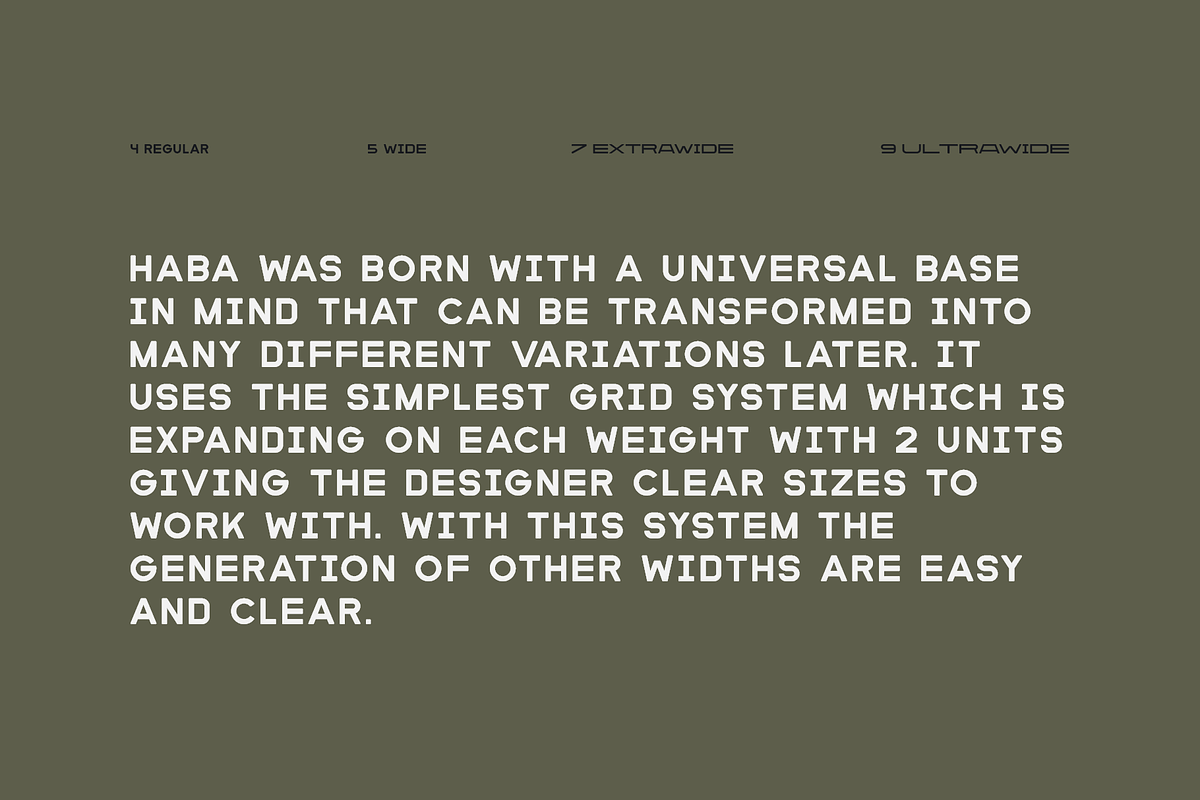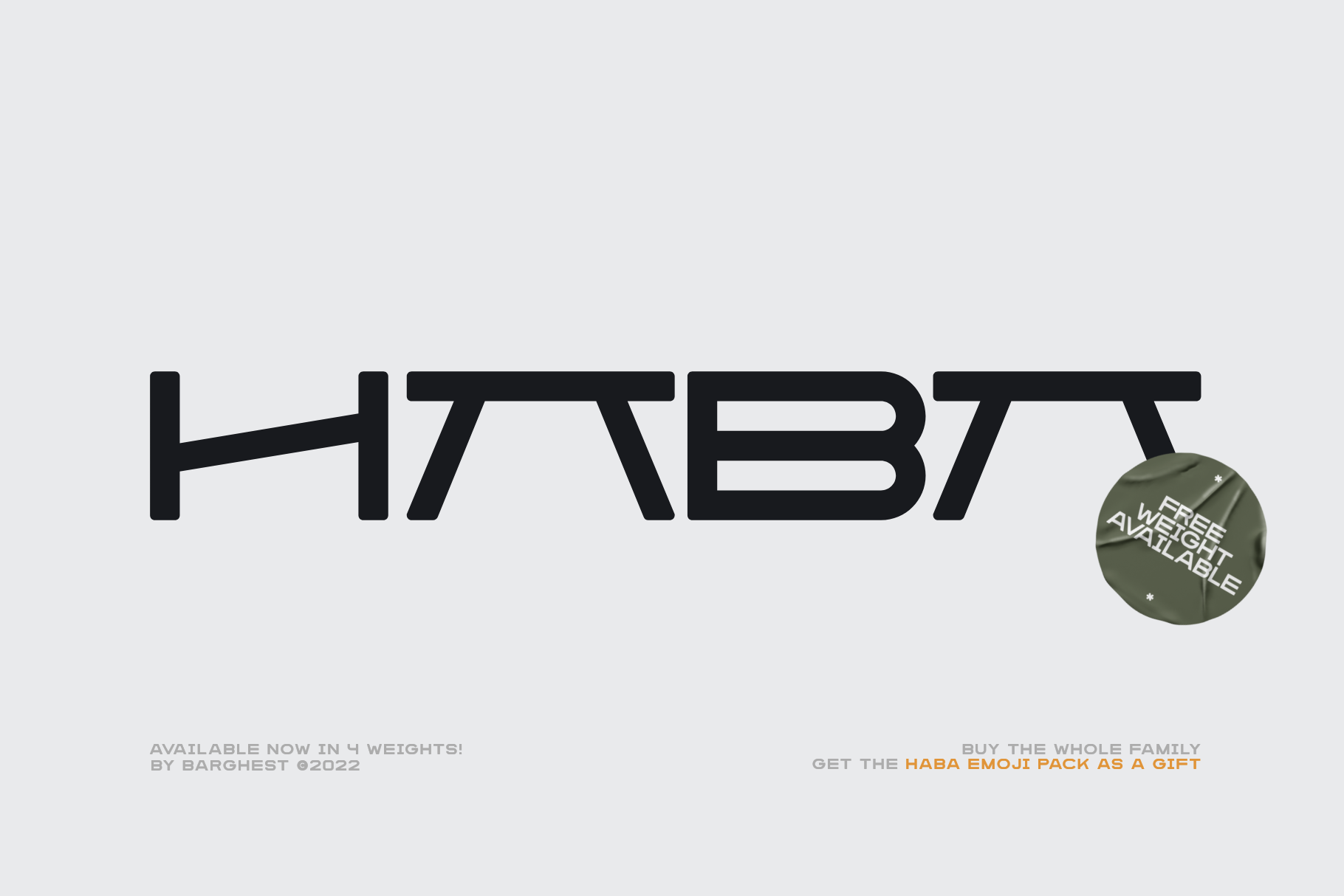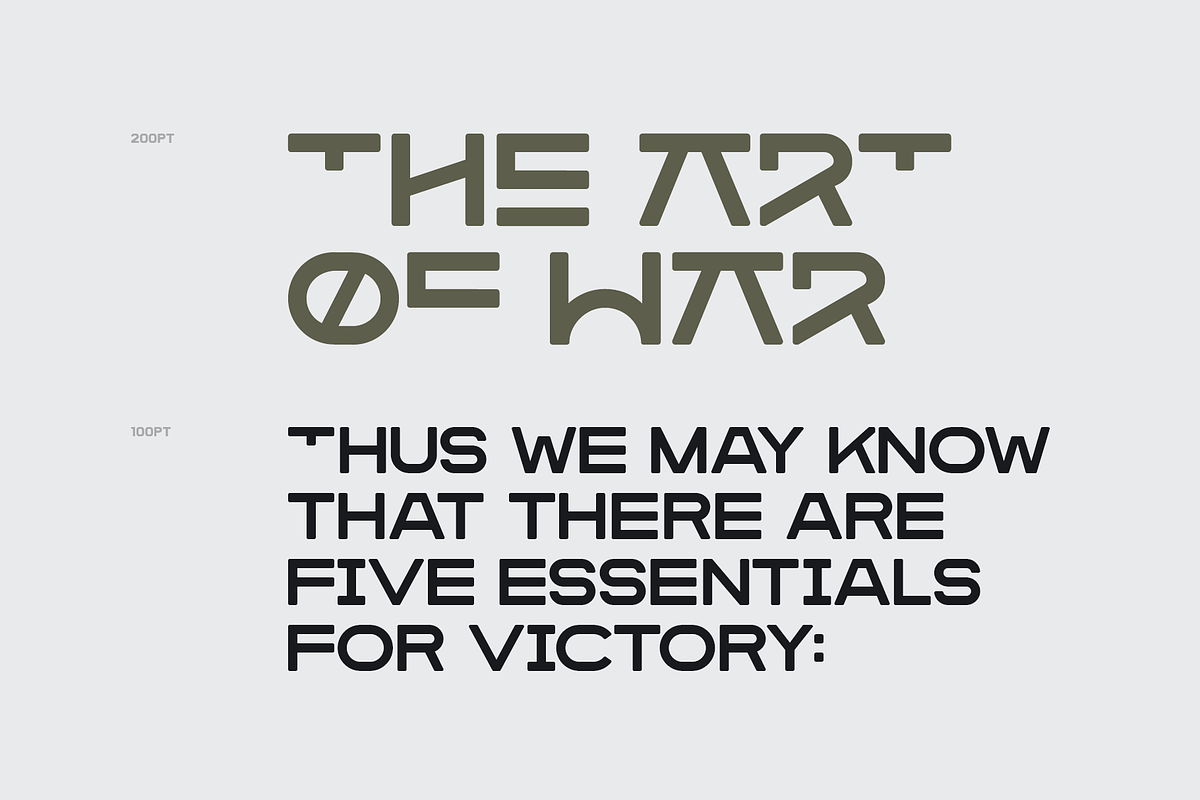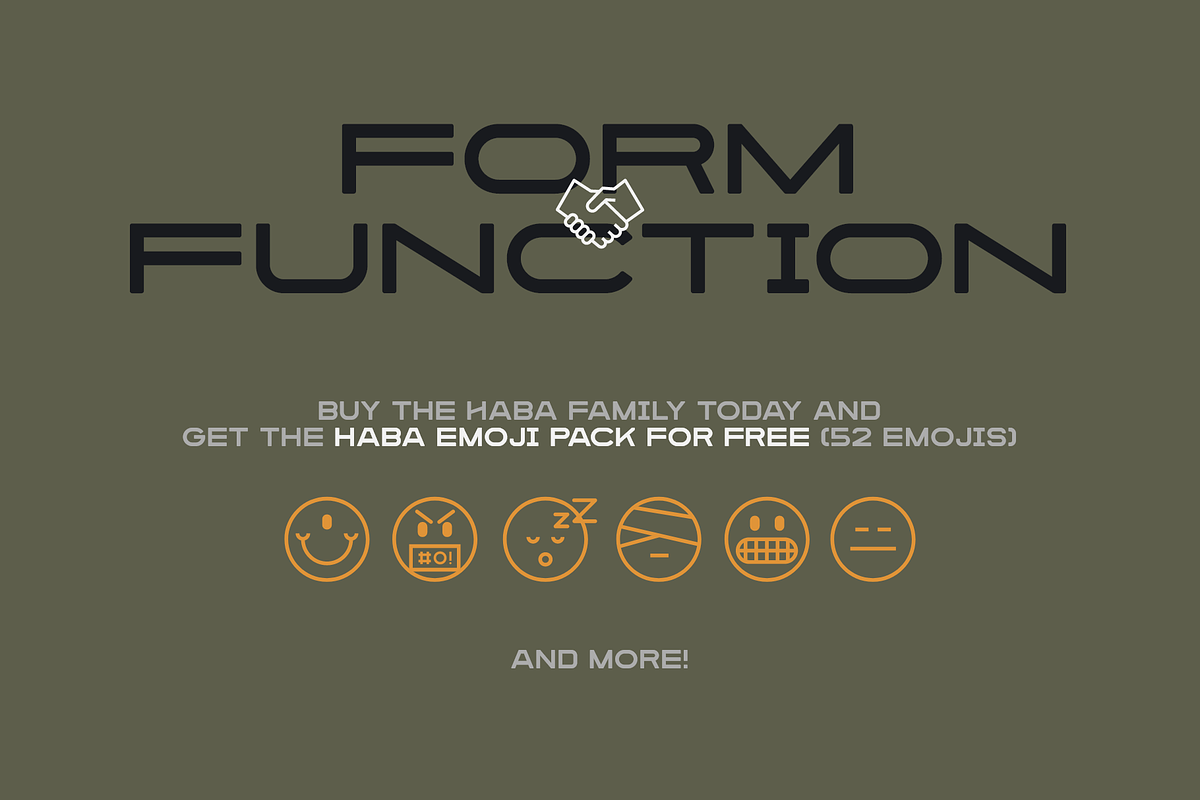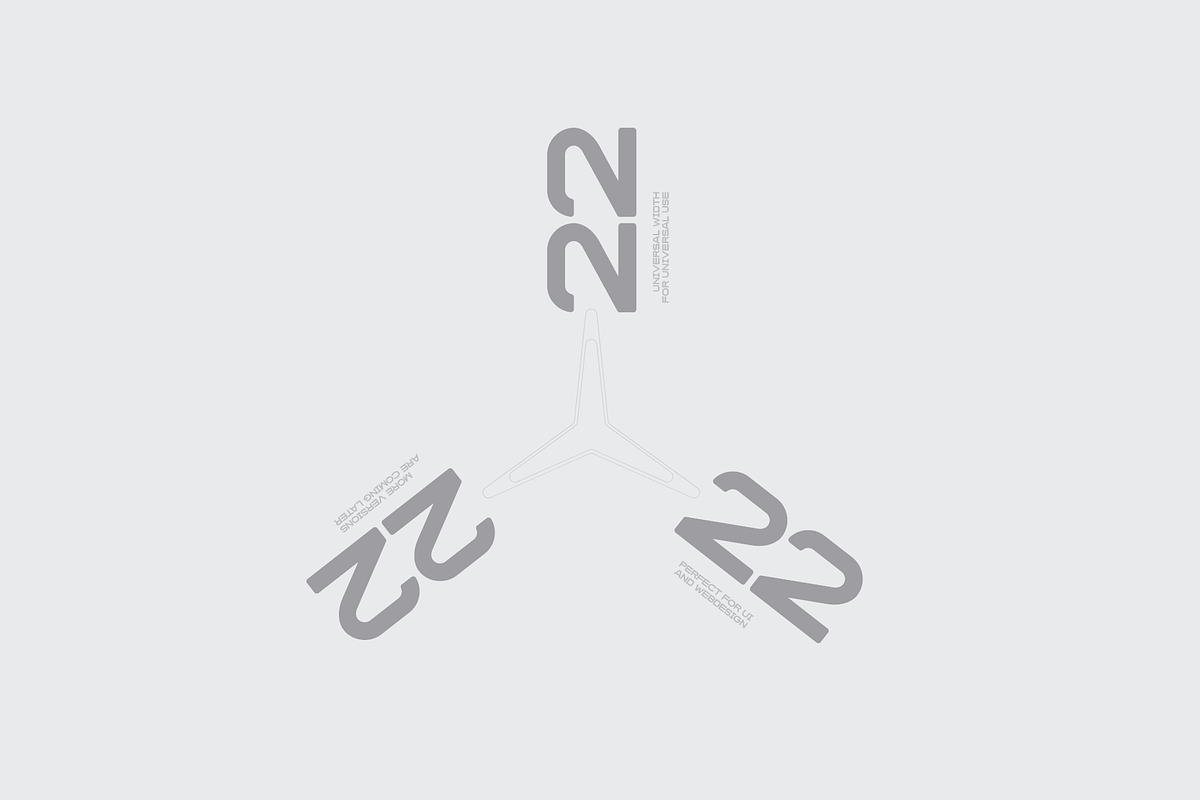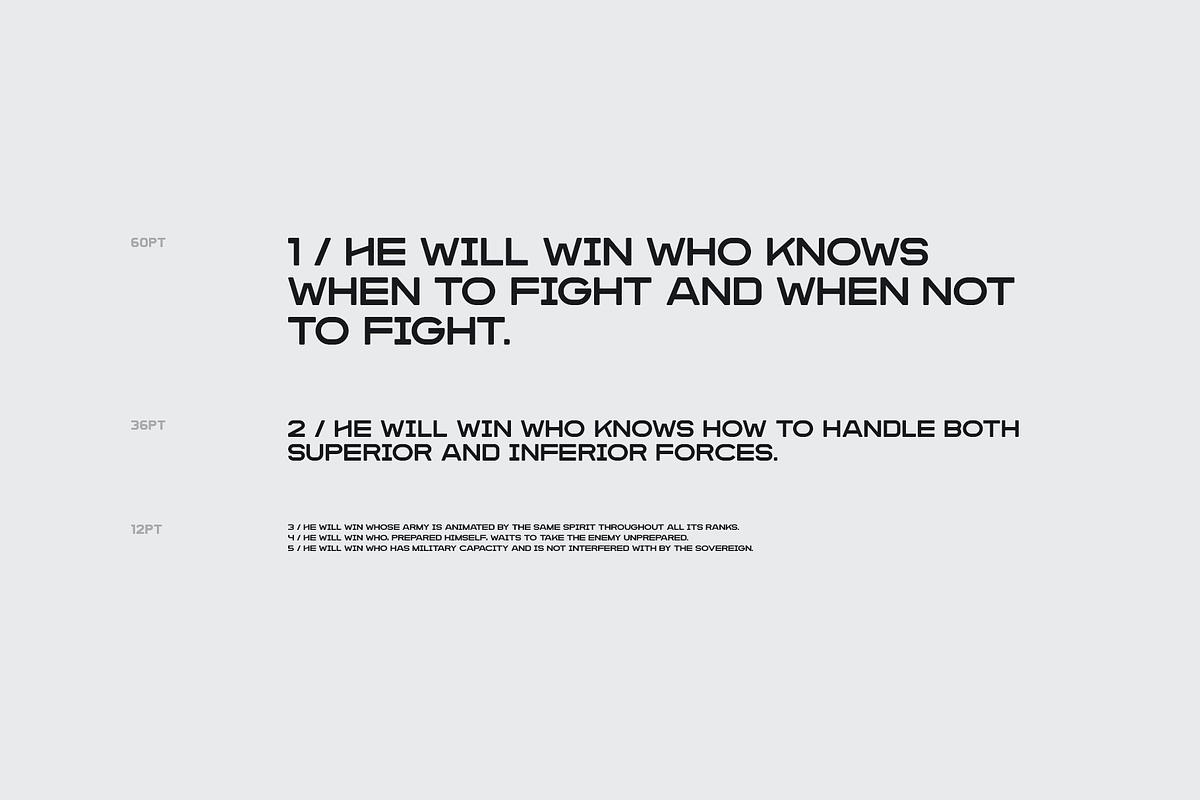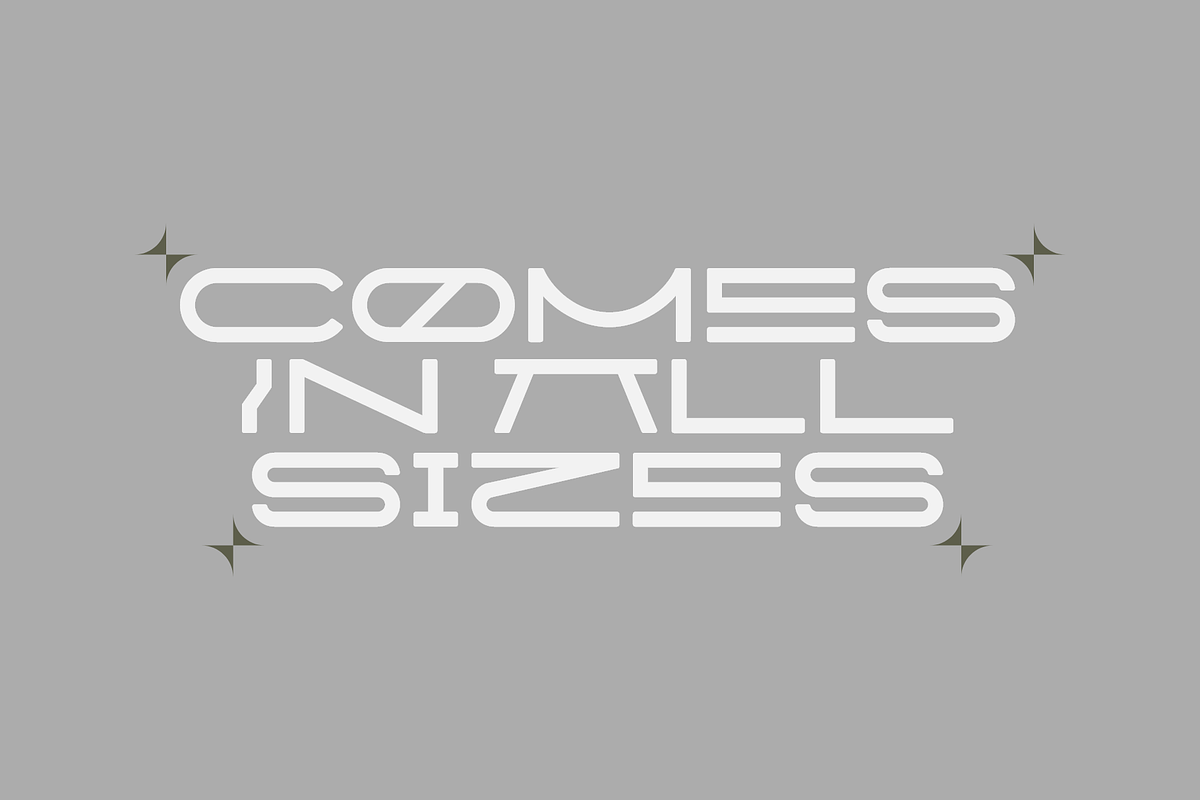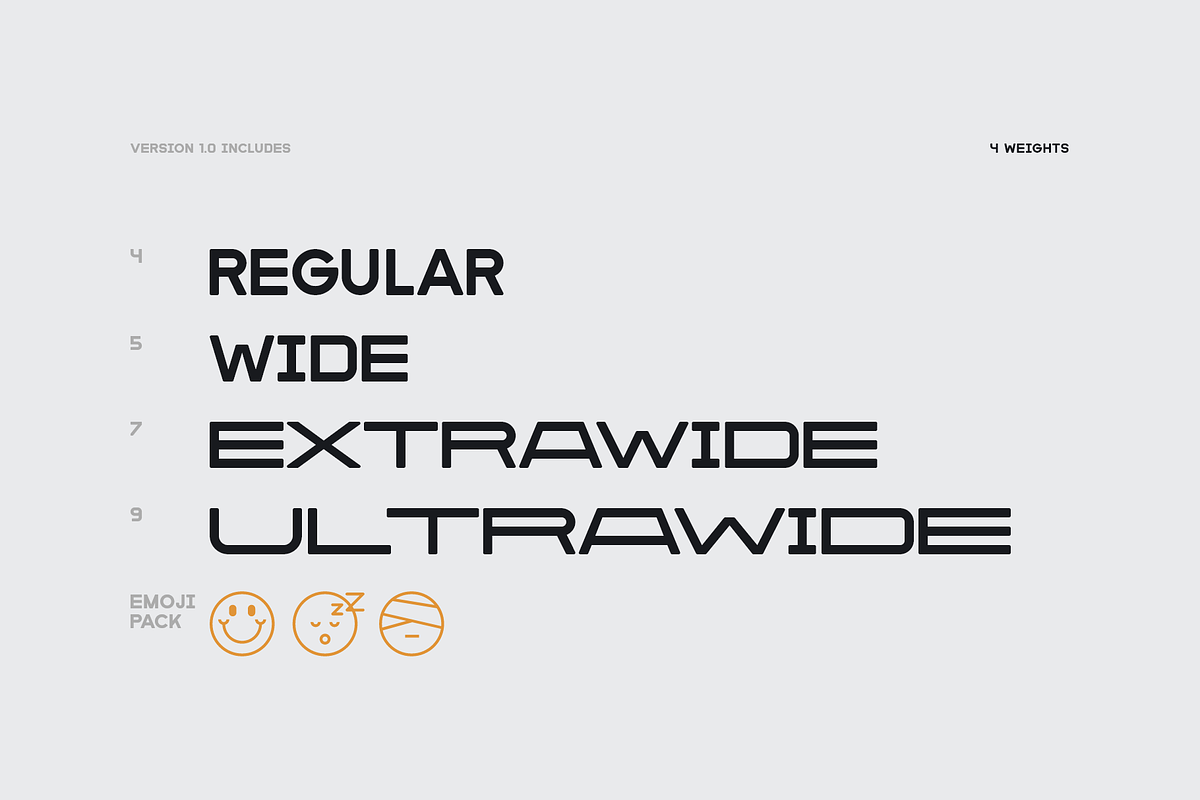
Haba Display Font Family
Haba was born with a universal base in mind that can be transformed into many different variations later. It uses a simple grid system which is expanding on each weight with 2 units giving the designer clear sizes to work with. with this system the generation of other widths are easy and clear.
The first base set includes 4 weights, from 4 REGULAR to 9 ULTRAWIDE (the numbers are marking the actual base width). If you buy the family now you get the emoji pack as a gift! A perfect pairing with the family, to spice up the design with some visuals.
Stand out from the crowd with your webdesign and app design with this font family and its emoji pack. Great use for a futuristic UI, or just some trendy stickers or posters.